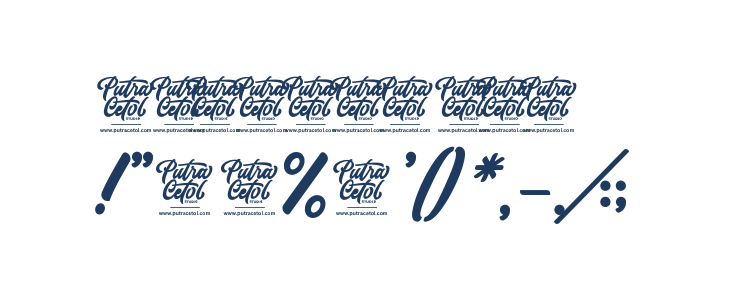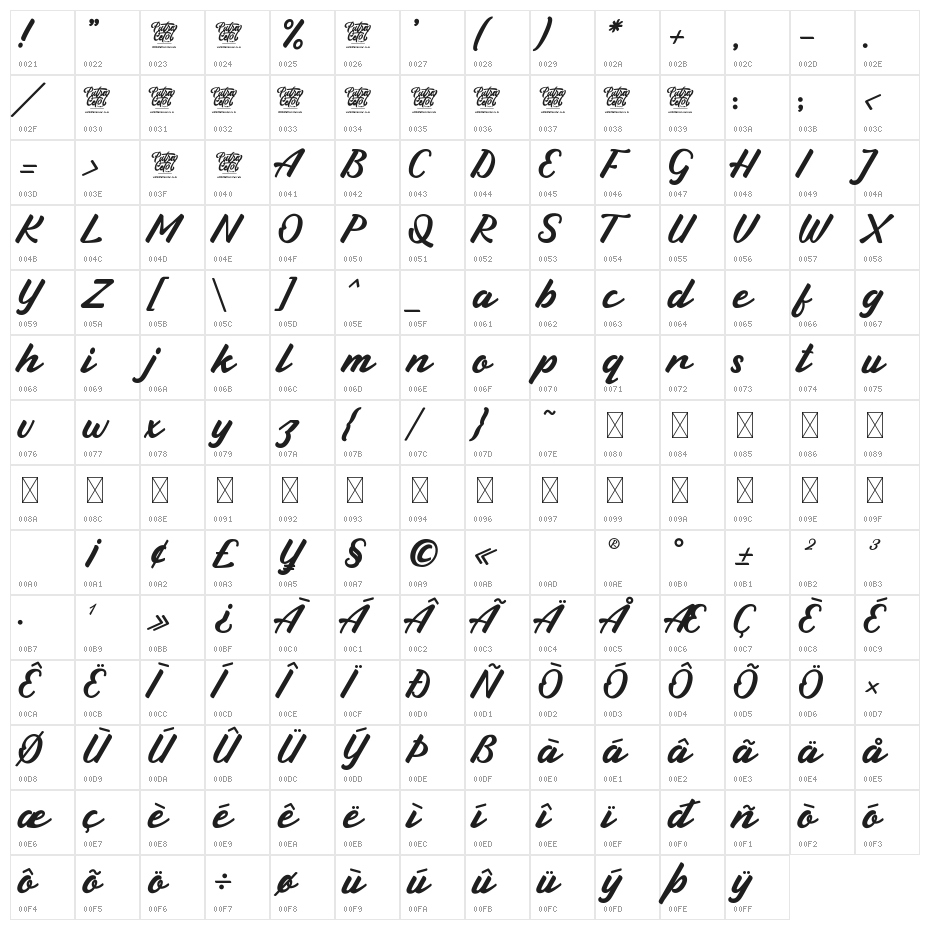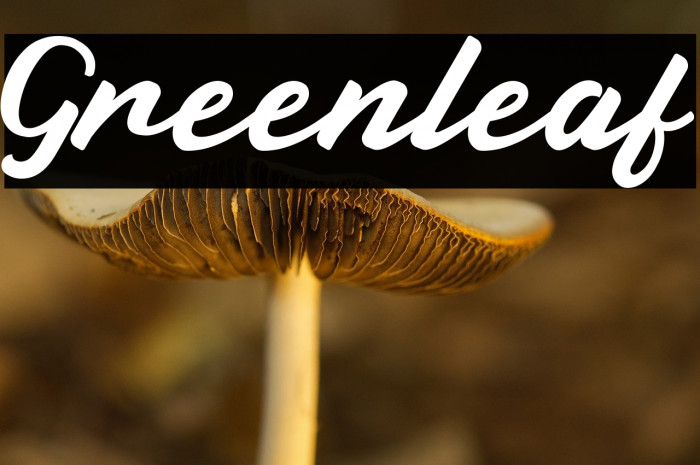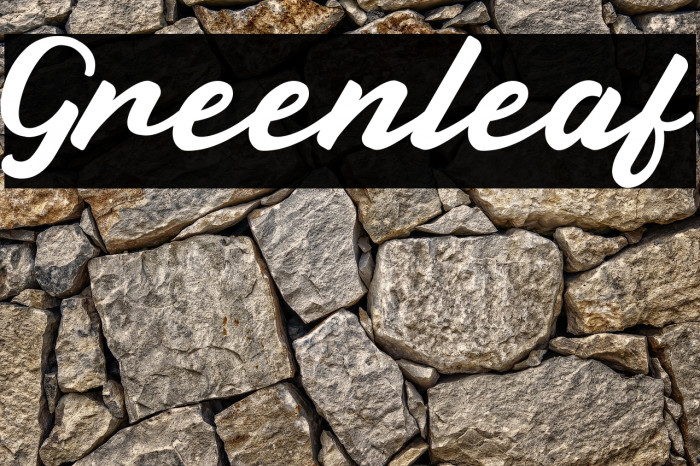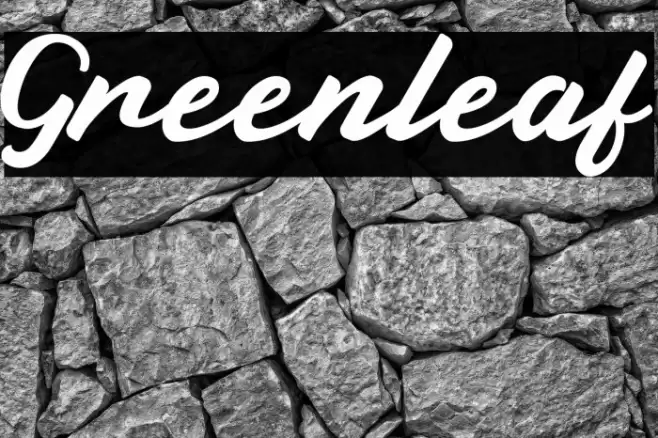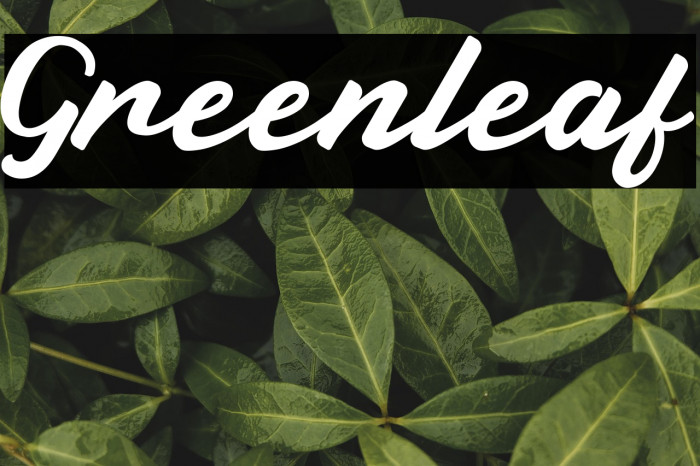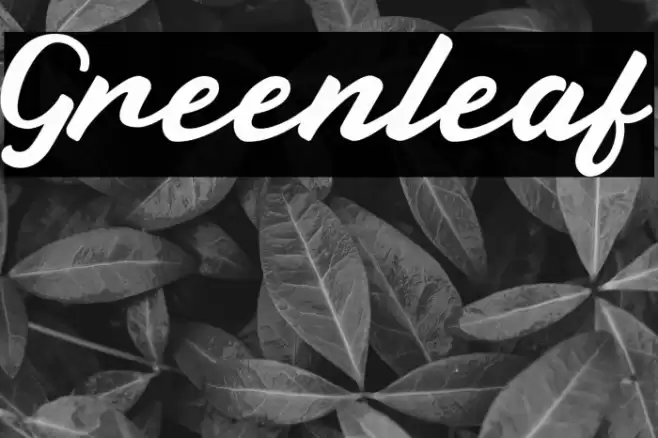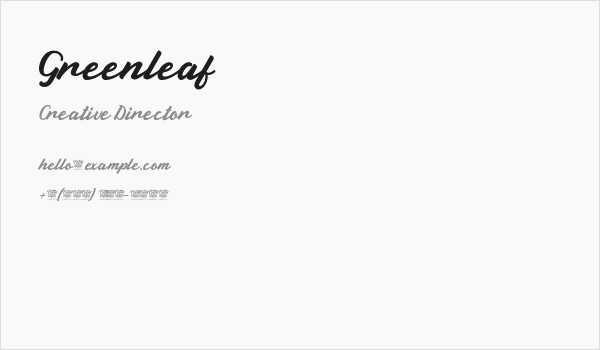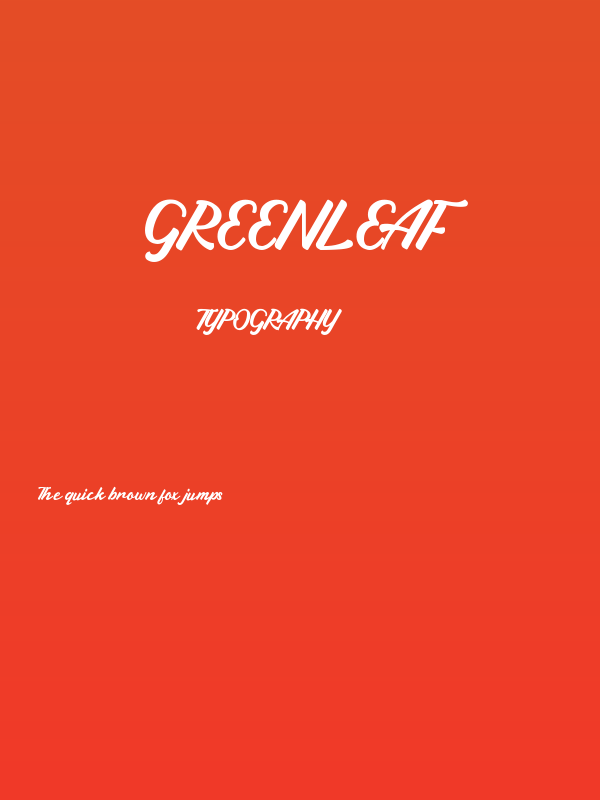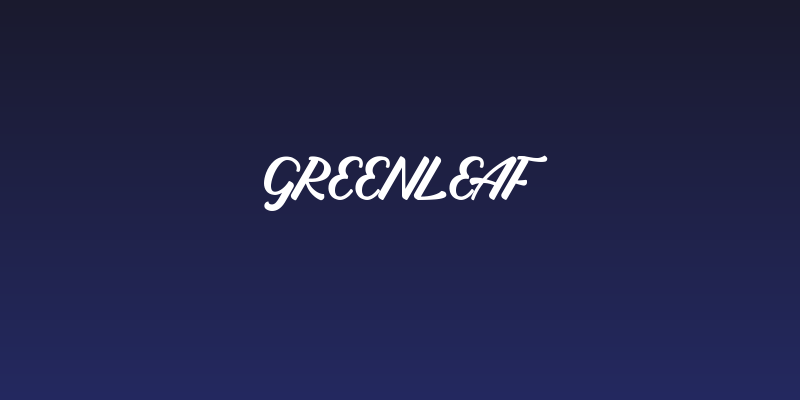
Greenleaf Font
Greenleaf Description
This font features a bold, flowing script style that exudes elegance and sophistication. The uppercase letters are characterized by sweeping curves and a sense of fluidity, while the lowercase letters maintain a consistent rhythm and balance. The font's design is reminiscent of traditional calligraphy, with a modern twist that makes it suitable for contemporary applications. The numerals and special characters are crafted with the same attention to detail, ensuring a cohesive look across all text elements. This font is ideal for projects that require a touch of class and refinement.